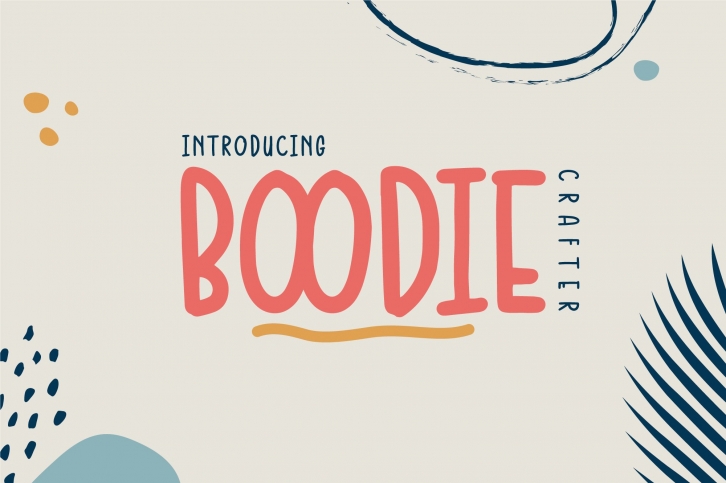
Boodie Crafter is a beautiful font that was designed by TACIKWORKS. It's a great choice for designers and creatives who need such a font. It was released on January 18, 2021 and the file size is 3.6 MB. Boodie Crafter may give a more youthful, expressive and casual look to your project. It is a very beautiful, refined, elegant, and high-quality font.